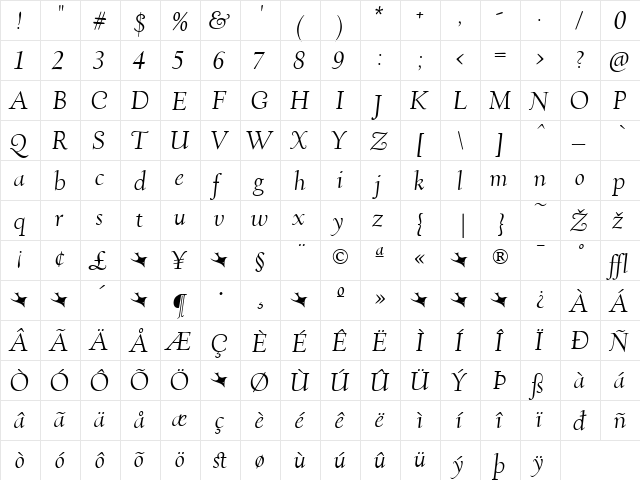
Village Regular
Design Context for Village Typeface
Village is a composed and adaptable typeface that performs quietly and consistently across a wide range of design contexts.